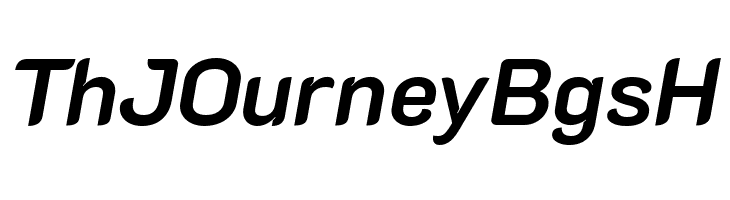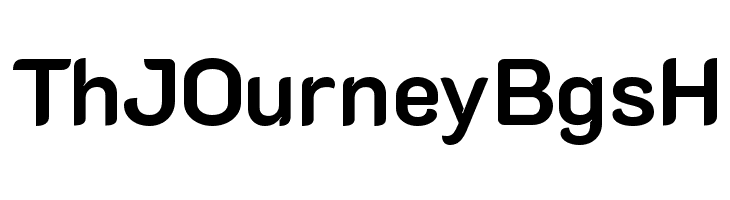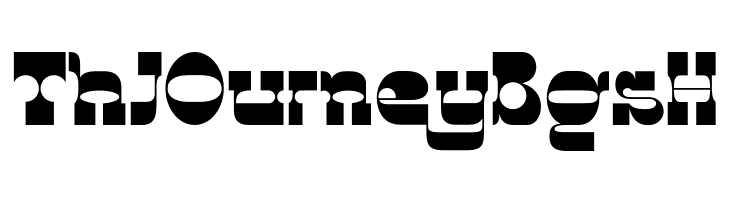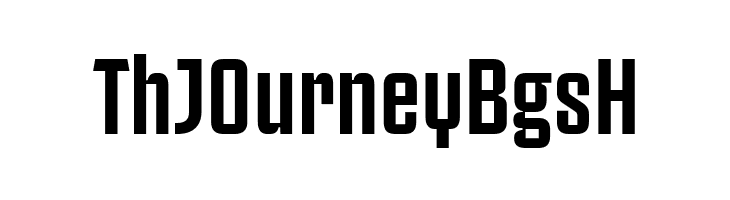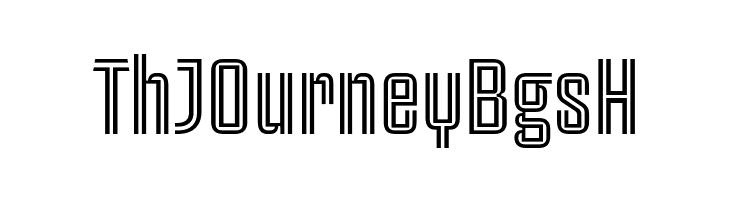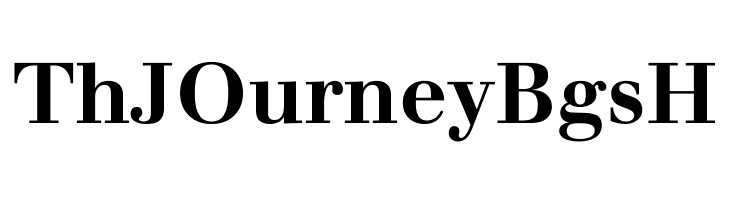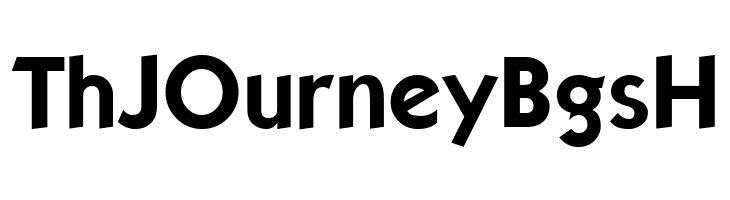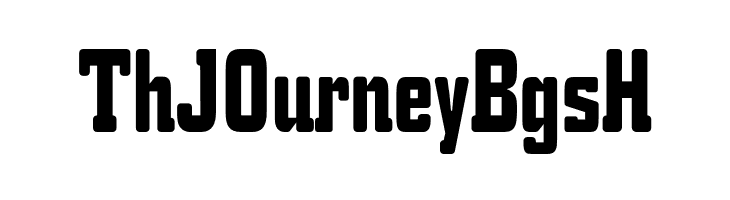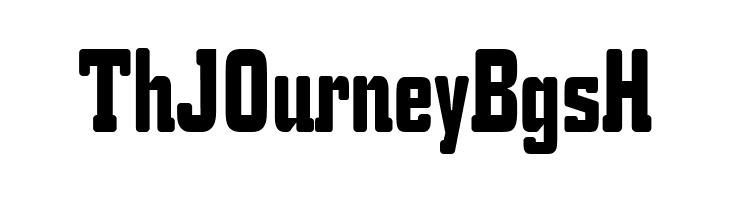
• JusticeRatkati-Bold
A bold, geometric font with high contrast and a modern, dynamic style.
• JustSunday-Bold
A bold, expressive handwritten font with dynamic cursive strokes.
• Justus Bold
• Juventus Fans Bold
A bold, geometric typeface with a modern and assertive style.
• Juventus Fans Bold inline
A bold, inline font with a geometric and modern design.
• K.O. Activista* Bold
• K.O.Activista-Bold
• K2D Bold
A bold, modern sans-serif font with rounded, geometric characters.
• K2D Bold Italic
A modern, bold, and italicized font with a sleek and dynamic appearance.
• Kabala Bold
A bold, geometric font with a modern and commanding presence.